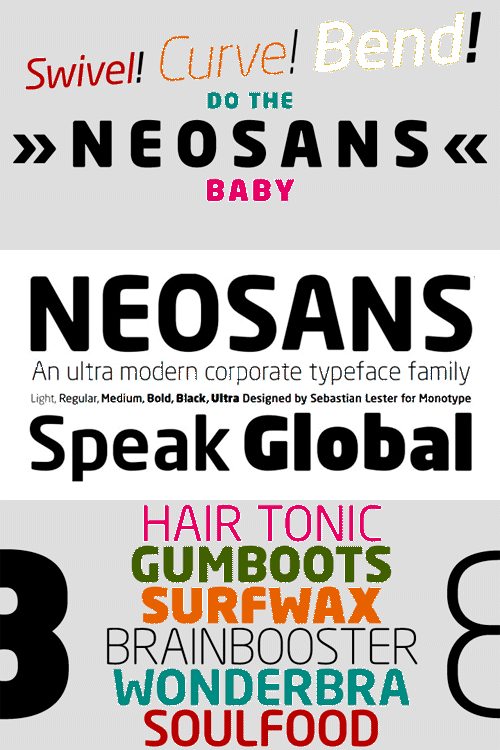
The branding agency's client wanted an "ultra modern" typeface that was "futuristic without being gimmicky or ephemeral," according to the design brief. Designer Sebastian Lester took on this intriguing custom font assignment, but soon, a bureaucratic decision cancelled the project. "I was left with a sketchbook full of ideas and thought it would be a shame not to see what came of them," says Lester. He decided to finish the design on his own. Lester's research confirmed that the principal ingredient of an "ultra modern" typeface was simplicity of character structure: a carefully drawn, monoline form, open letter shapes and smooth, strong curves. To conceive a typeface that crossed the line from modern to futuristic, Lester decided to amplify these qualities. About a year after Lester's initial conceptual work, two highly functional and versatile typefaces emerged. These are Neo Sans and Neo Tech, designs Lester describes as "legible without being neutral, nuanced without being fussy, and expressive without being distracting." Both the Neo Sans and the more-minimalist Neo Tech families are available in six weights, ranging from Light to Ultra. Each has a companion italic, and Neo Tech offers a suite of alternate characters. While engineered to look modern as tomorrow, Neo Sans and Neo Tech display the functional and aesthetic excellence that earns them a place in the list of classic designs from the Monotype typeface library. Neo is a trademark of Monotype Imaging Inc. registered in the U.S. Patent & Trademark Office and may be registered in certain other jurisdiction